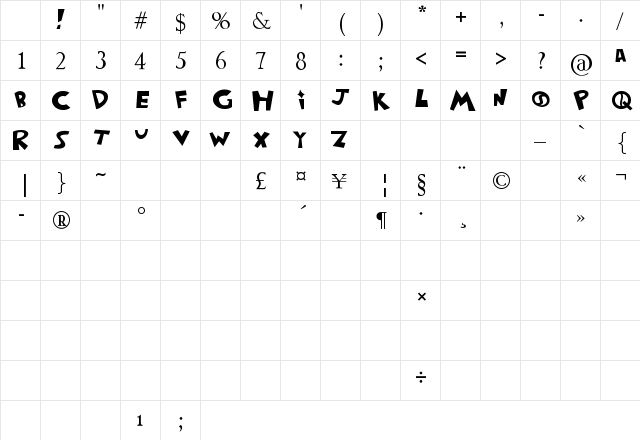
yin yang sans is a composed and adaptable typeface that performs quietly and consistently across a wide range of design contexts.
Pro Tip: Use yin yang sans in both headline and body roles to test its range before committing to a single application.